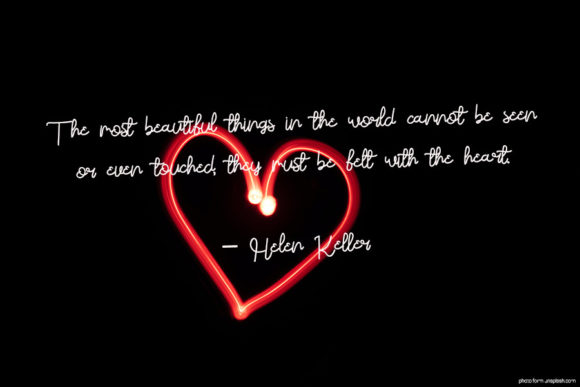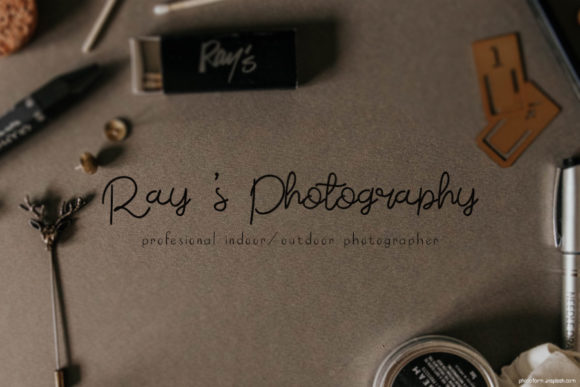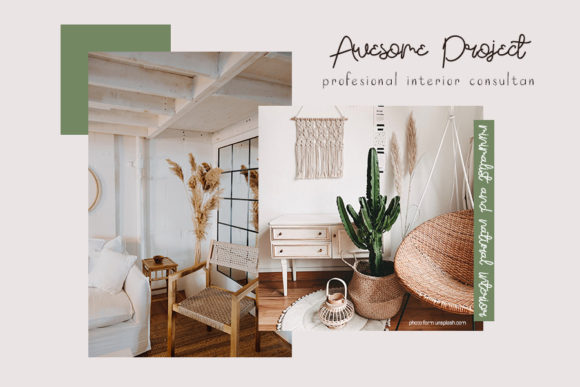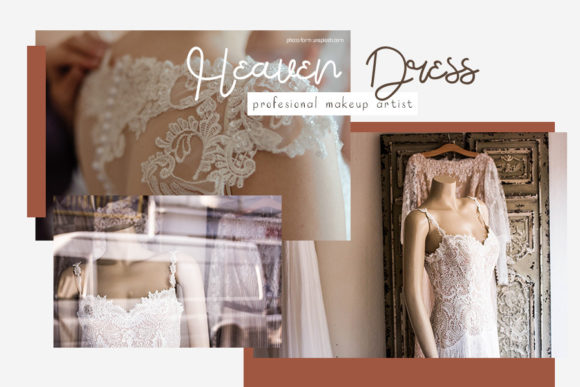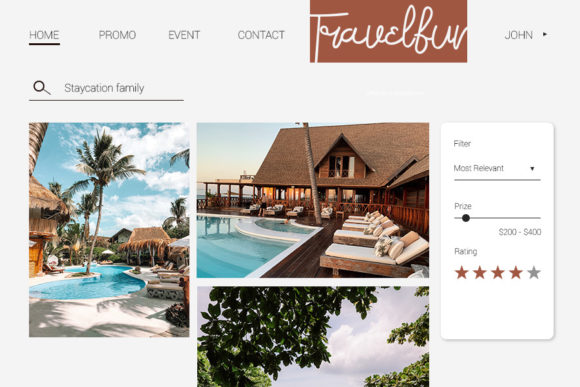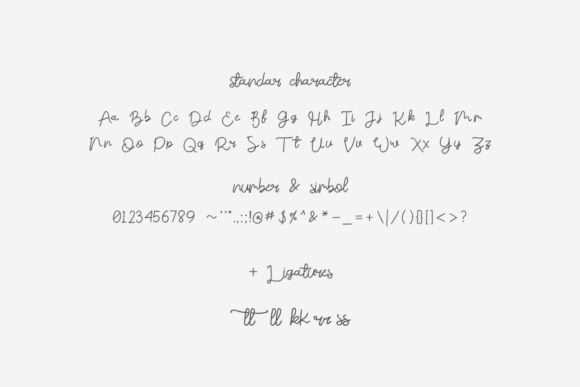
The Perfect Touch: Beautiful Heart Font
For designers, the right font can be the key to unlocking that magic. That’s where Beautiful Heart Font comes in – a sweet and timeless handwritten font that adds a touch of elegance to any design. Whether you’re crafting a logo, branding, or a heartfelt quote, Beautiful Heart Font is the perfect choice to make your creations shine.
- Unique Characteristics: Beautiful Heart Font features a unique, handwritten style with a touch of elegance and sophistication, making it perfect for creative projects and designs.
Beautiful Heart Font Review
When I first laid eyes on the Beautiful Heart Font, I was immediately drawn to its unique and playful aesthetic ✨. The font’s whimsical feel is perfect for projects that require a touch of warmth and personality. The font’s designer has done an excellent job of creating a cohesive and harmonious design, making it easy to use in a variety of contexts.
Some of the key strengths of the Beautiful Heart Font include:
- ✨ Its wide range of application: from invitations and greeting cards to social media posts and marketing materials.
- ✨ Its versatility: it can be used for both digital and print projects, making it a great all-around font choice.
- ✨ Its ease of use: the font is highly legible and easy to read, even at small font sizes.
However, there are some limitations to consider ⚠️:
- ⚠️ The font may not be suitable for formal or professional projects, as its playful feel may come across as unprofessional.
- ⚠️ The font may not be available in as many languages as some other fonts, which could be a limitation for projects that require multilingual support.
Overall, I think the Beautiful Heart Font is a great choice for designers who want to add a touch of personality and whimsy to their projects. While it may have some limitations, its unique design and versatility make it a valuable addition to any font library.
The Beautiful Heart Font is perfect for creating romantic and whimsical designs. Use it for:
- Wedding invitations and decorations.
- Valentine’s Day cards and gifts.
- Personalized gifts and stationery.
Remember to adjust the font size and style to create a balanced and visually appealing design.